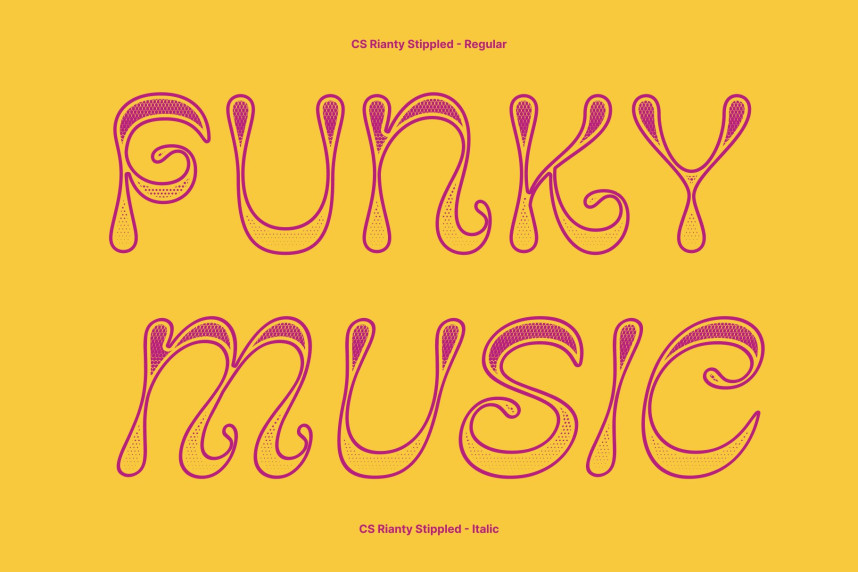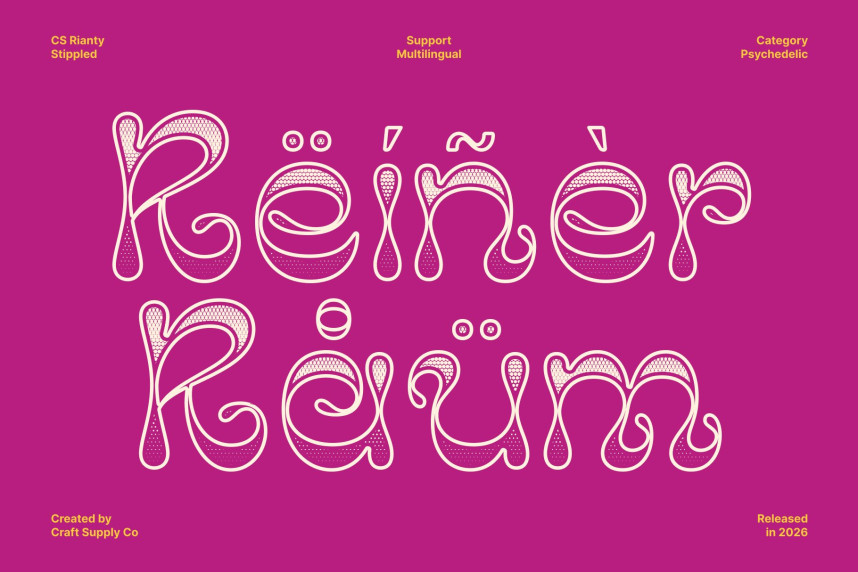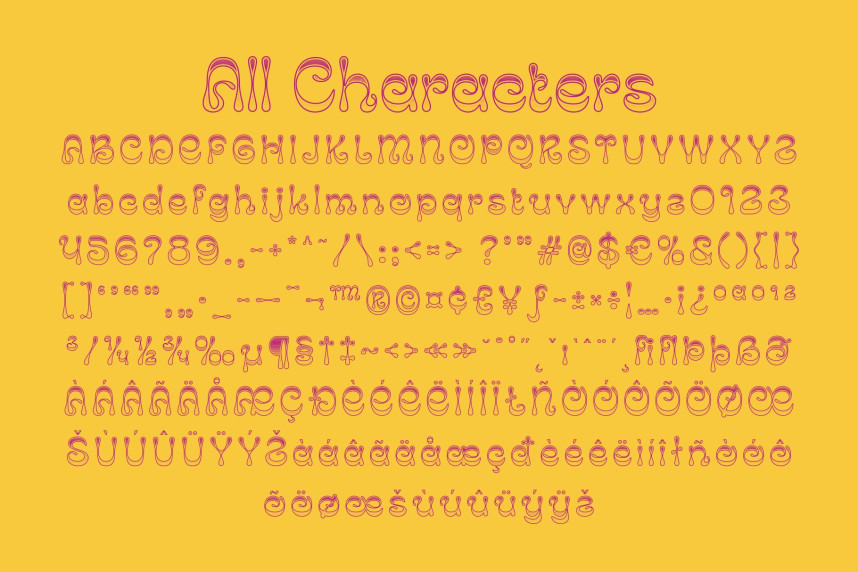
CS Rianty Stippled Font
CS Rianty Stippled Font – Trippy Psychedelic Display Font
Fluid, Hypnotic, and Unconventional
This is a modern psychedelic display font designed to bend perception and spark visual intrigue. Its liquid-like curves, warped letterforms, and dynamic motion create a surreal, free-flowing aesthetic that instantly captures attention. The stippled texture adds a unique handcrafted depth, giving each character a lively, organic feel that enhances the font’s dreamlike personality.